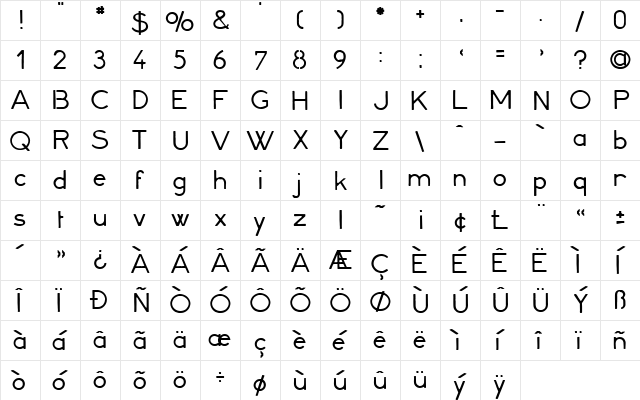
Minerva16 Regular
Design Context for Minerva16 Typeface
Minerva16 takes a measured approach to typography — its balanced proportions and neutral character make it a reliable workhorse for both digital and print work.